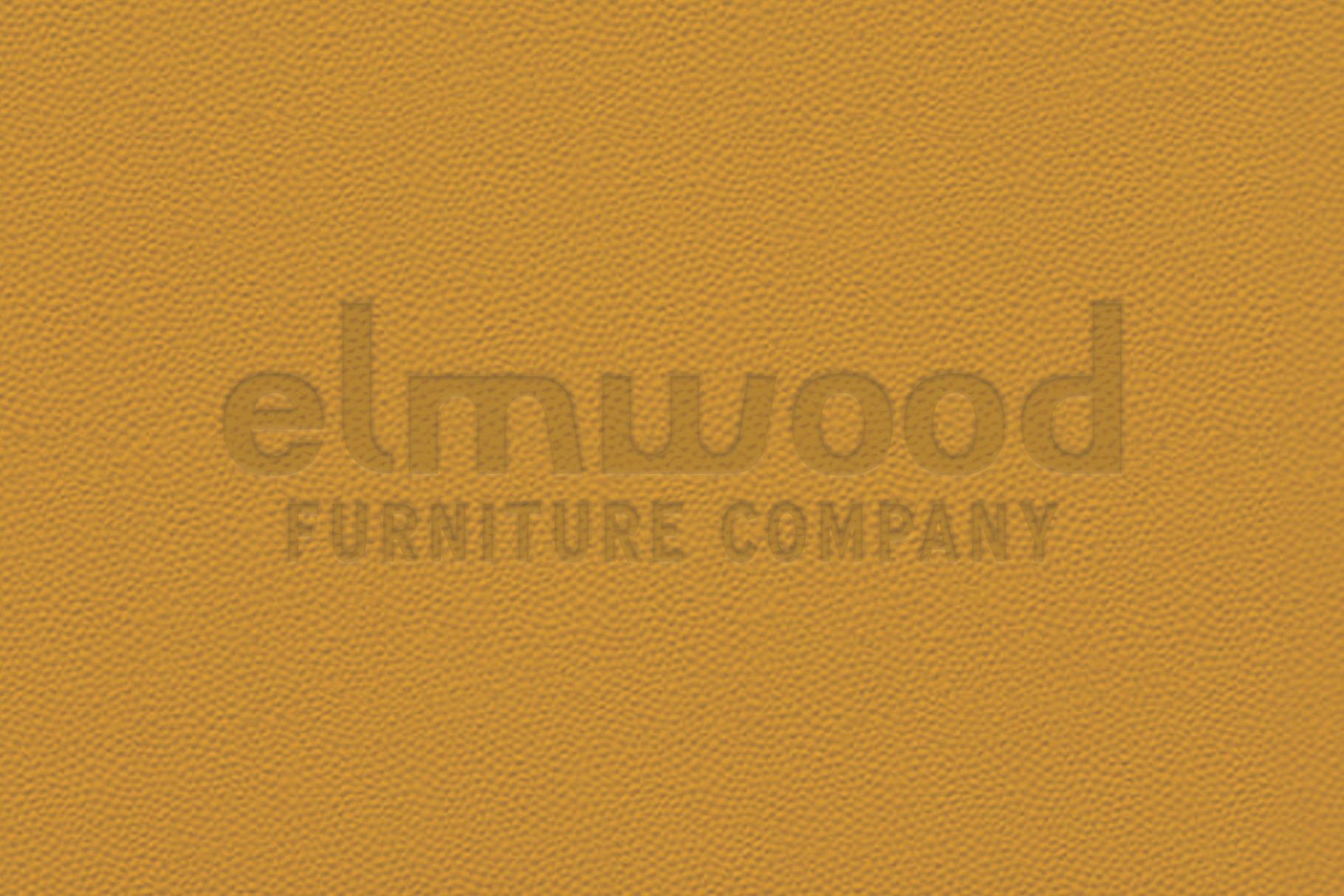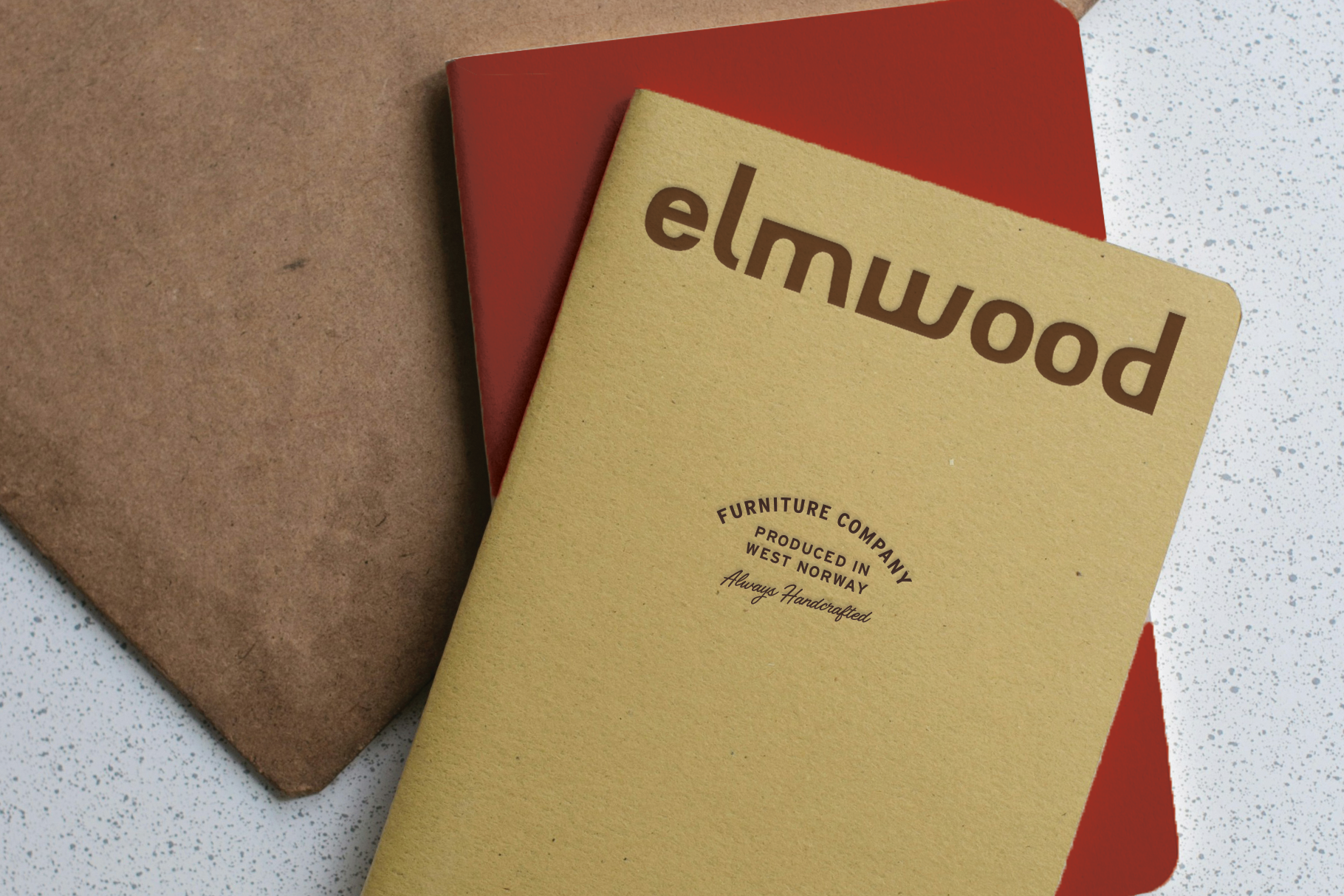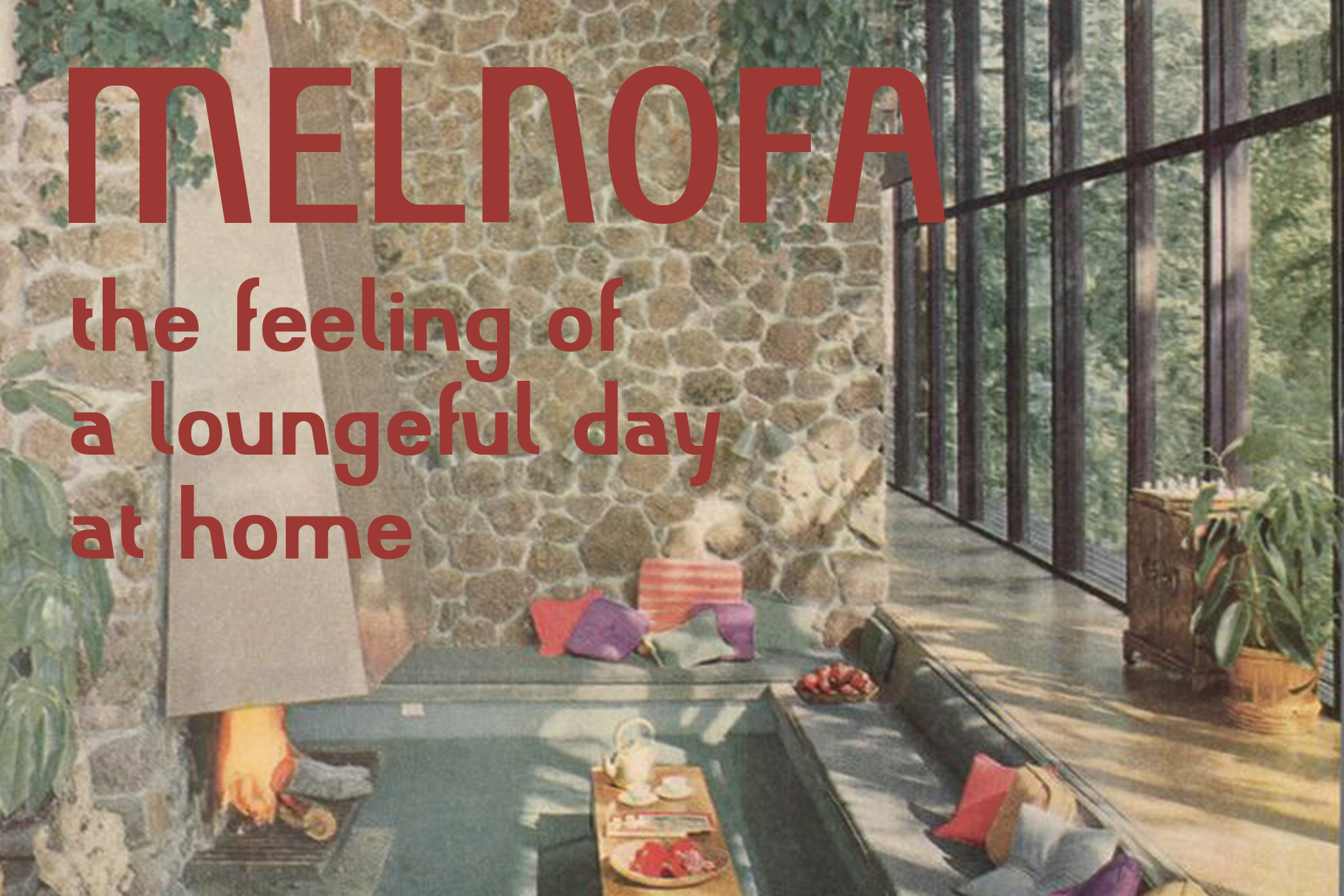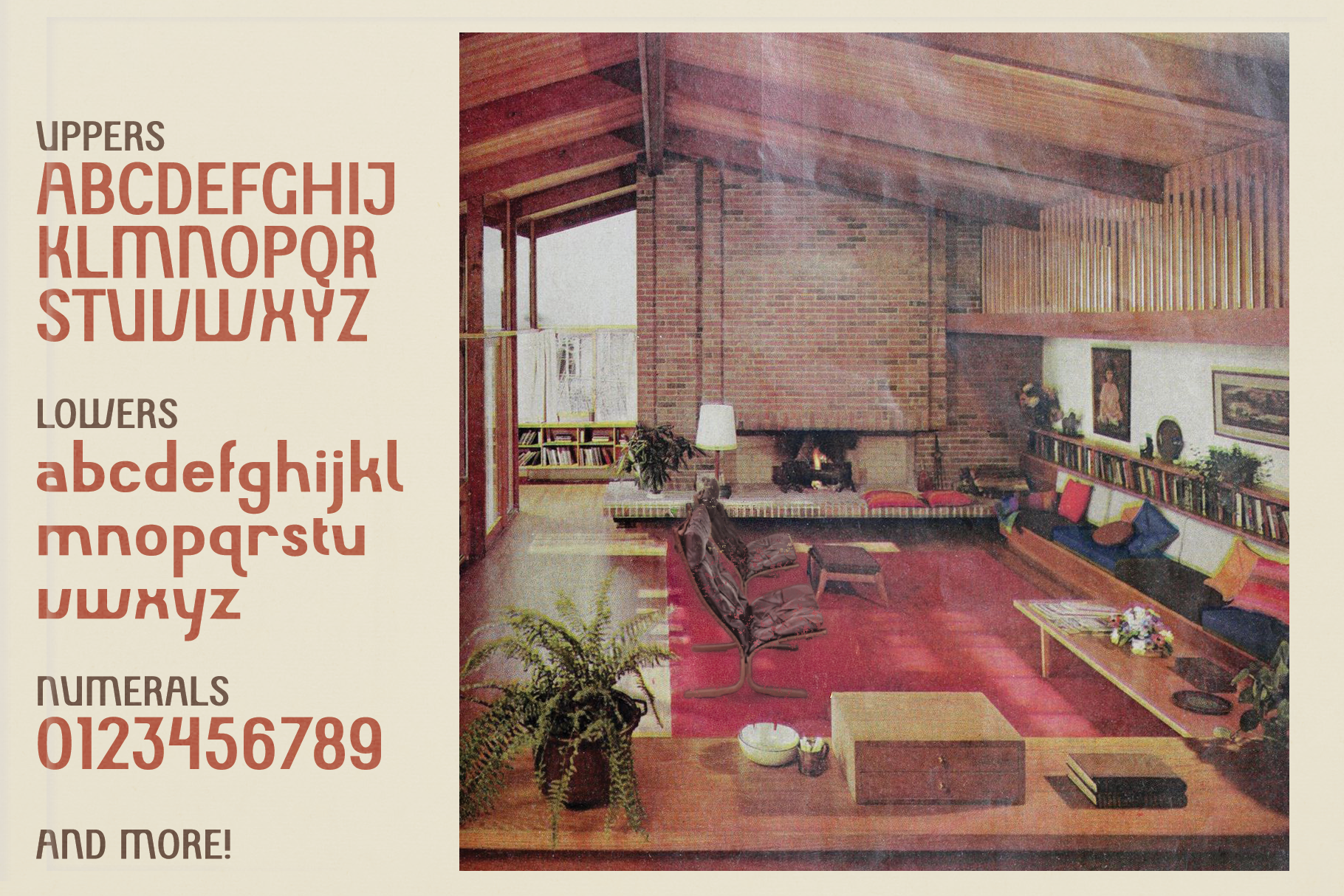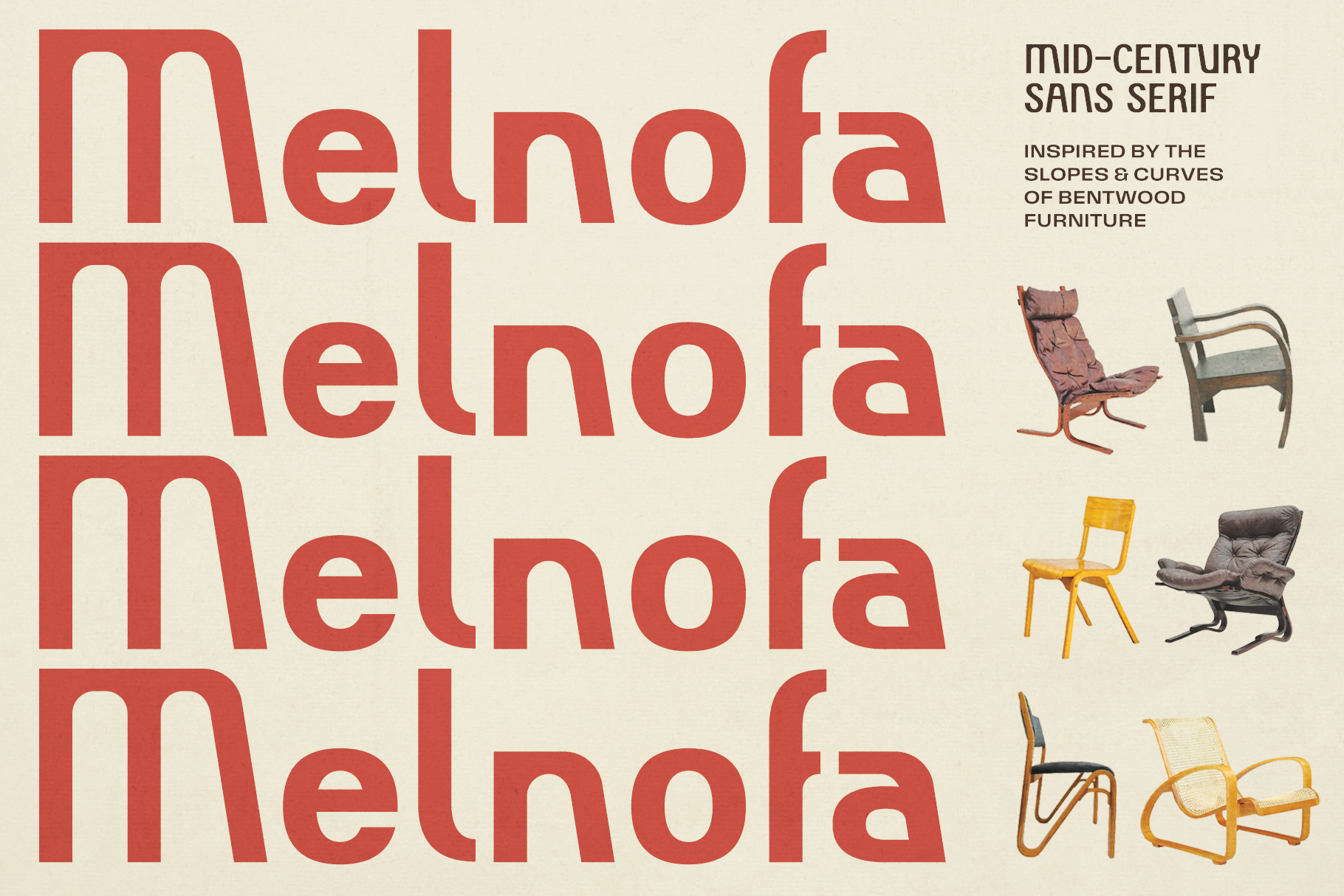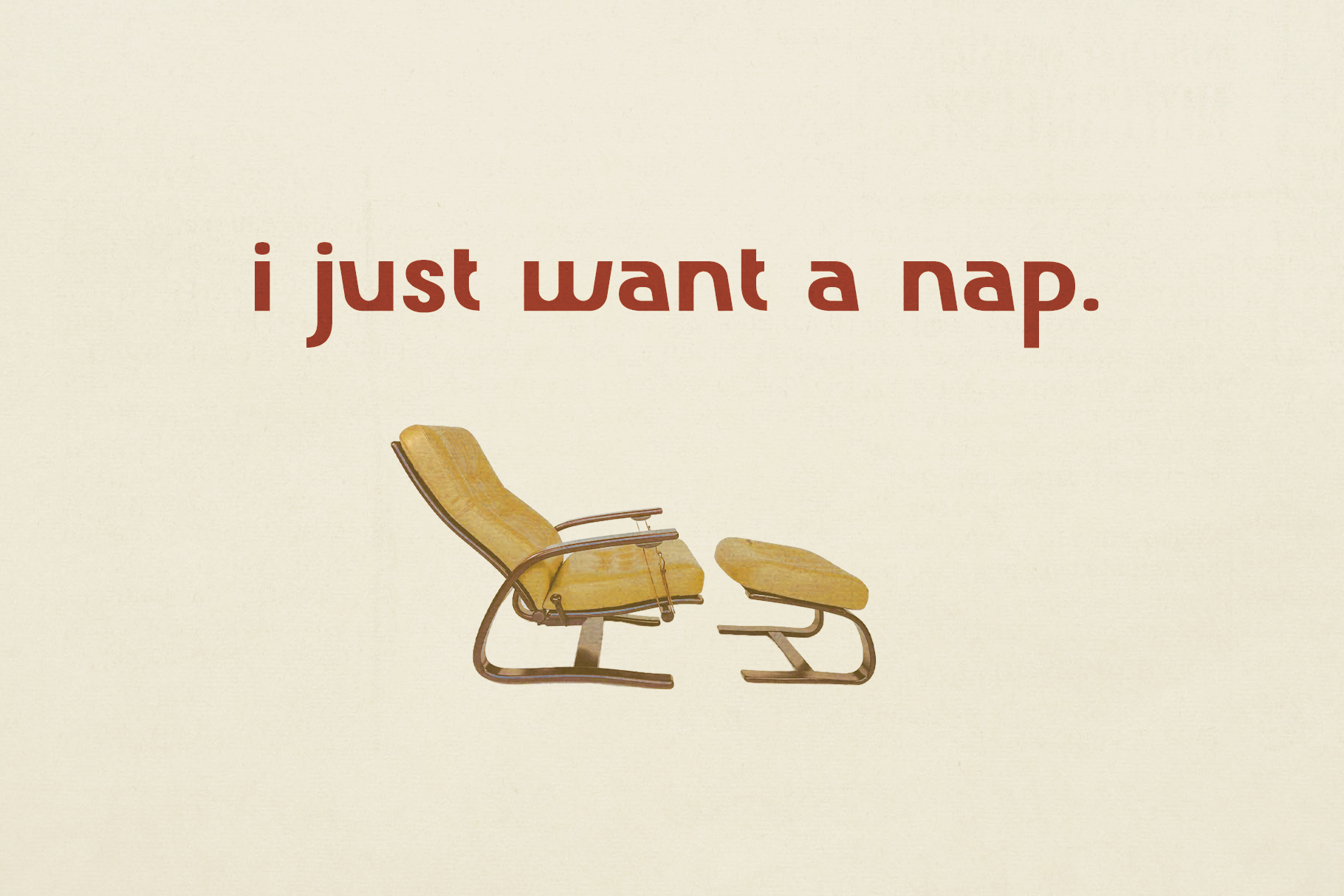
MELNOFA Typeface
About the Font
Melnofa is a mid-century sans-serif inspired by bentwood furniture from the 60s. It features sloped letterforms with subtle rounding, like the structure of the Siesta chair from Ingmar Relling. Melnofa is based on found type from a 1960s book cover found at an estate sale in Austin, Texas.
✔️ Uppercase & Lowercase letterforms
✔️ Numbers & punctuation